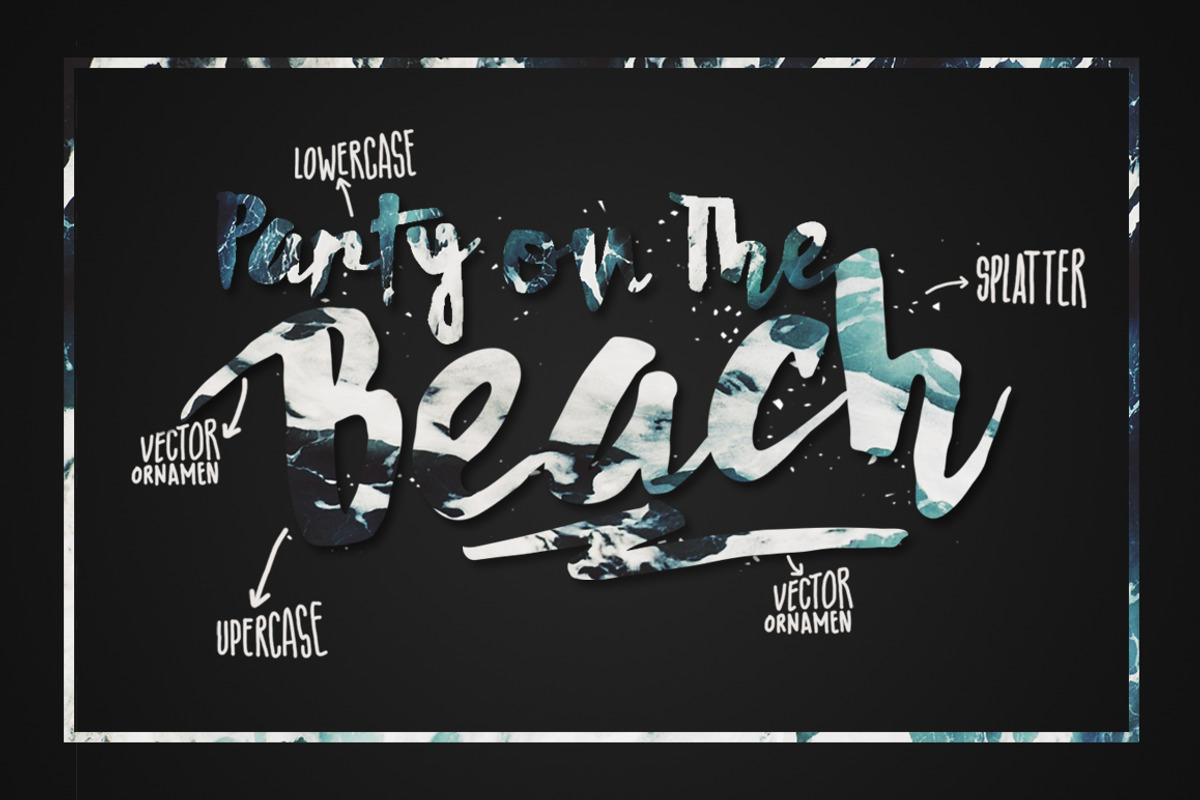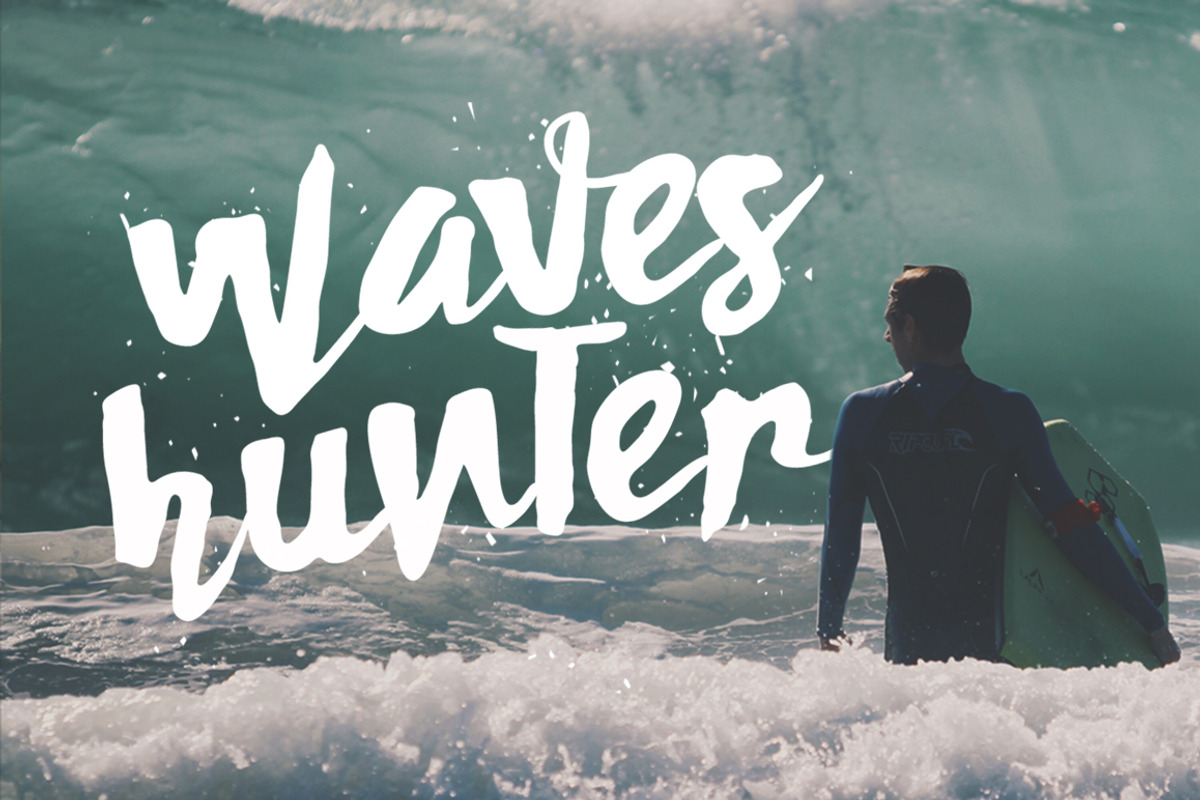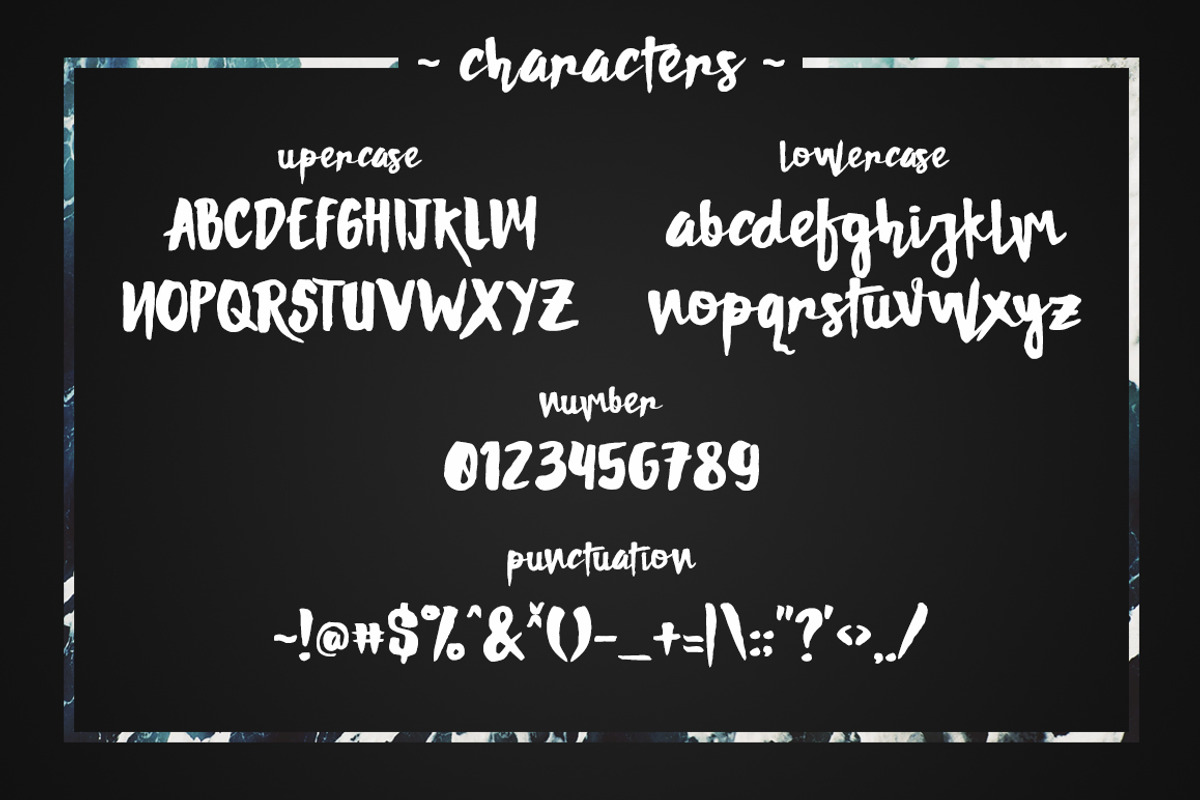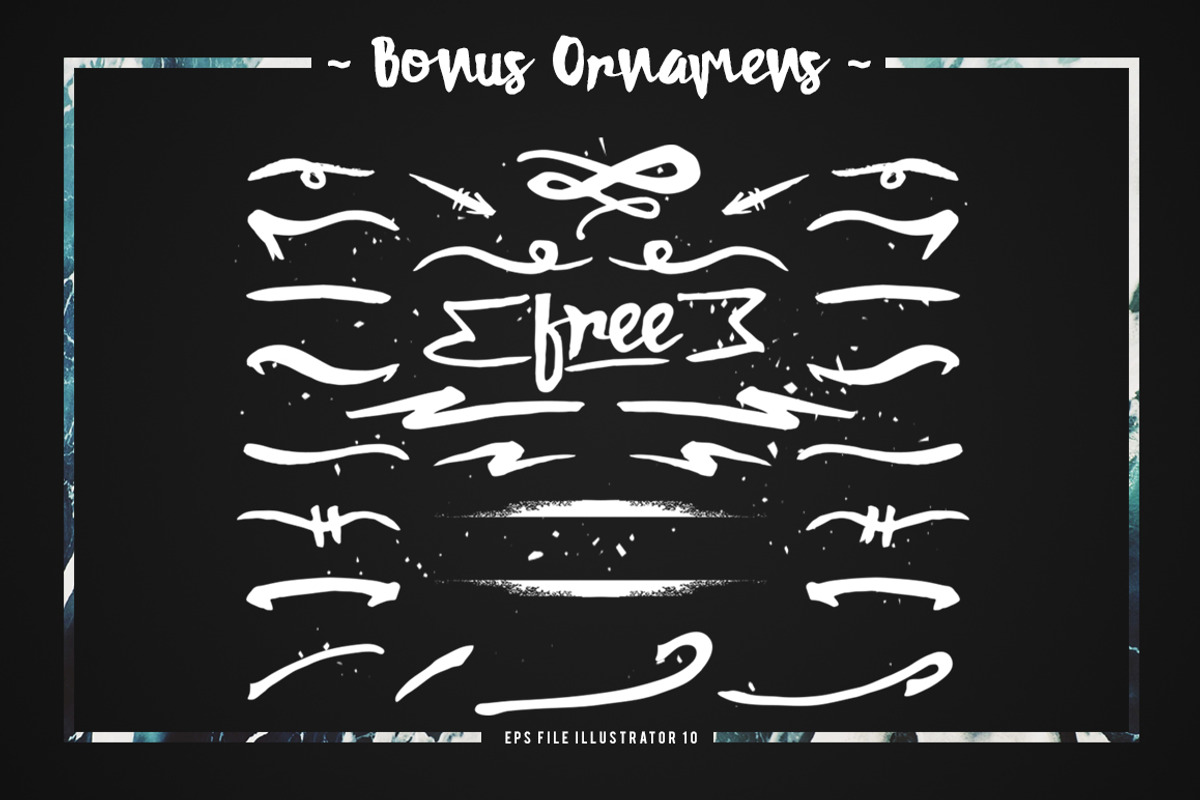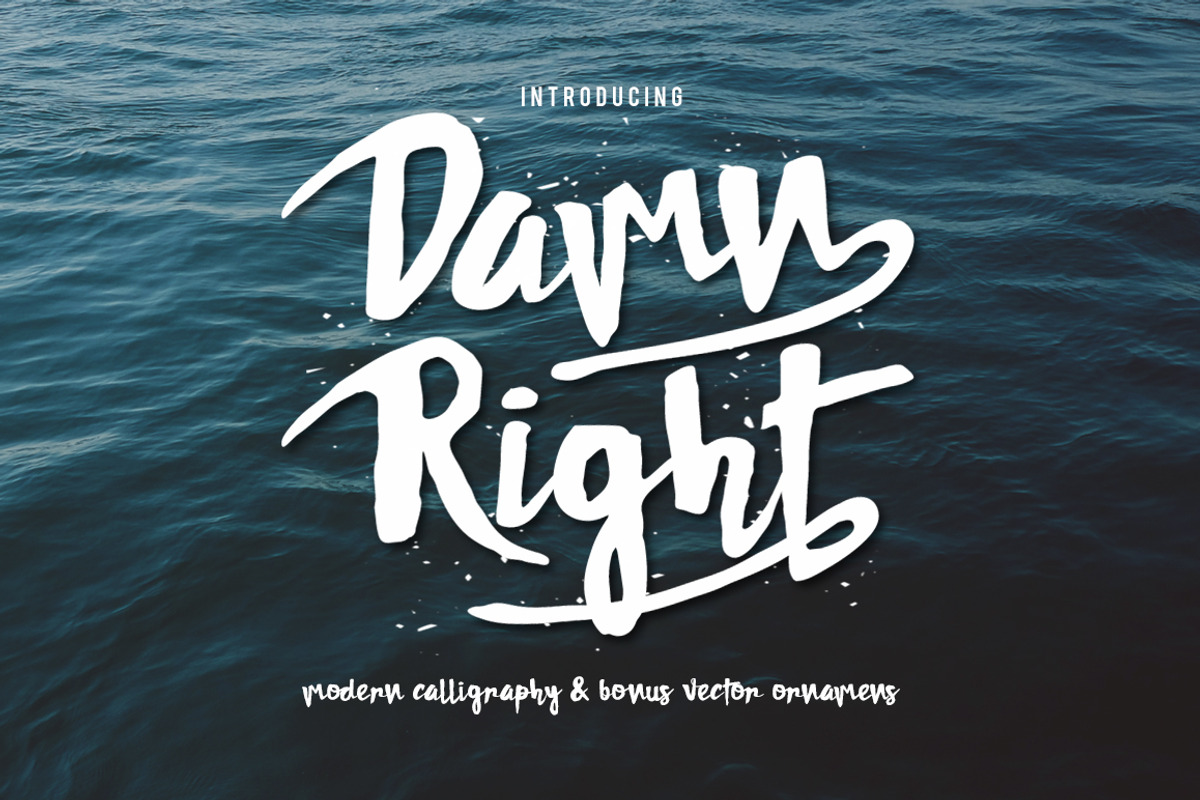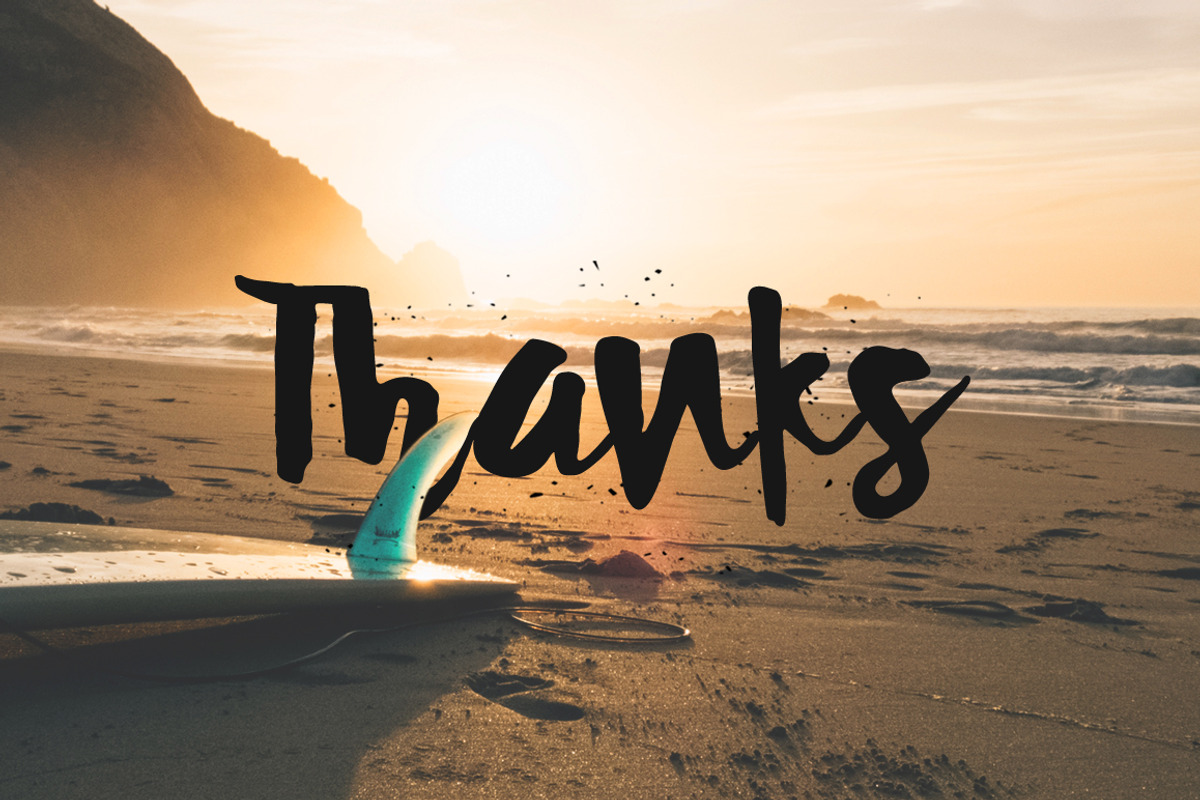
DAMNRIGHT Typeface
DAMNRIGHT Typeface by giemons™ is a font selected for branding, posters, packaging, typography.
Why DAMNRIGHT Typeface is worth a look
DAMNRIGHT Typeface by giemons™ fits naturally into Branding, posters, packaging, typography.